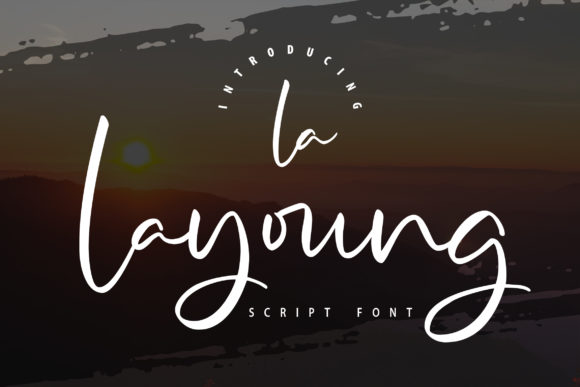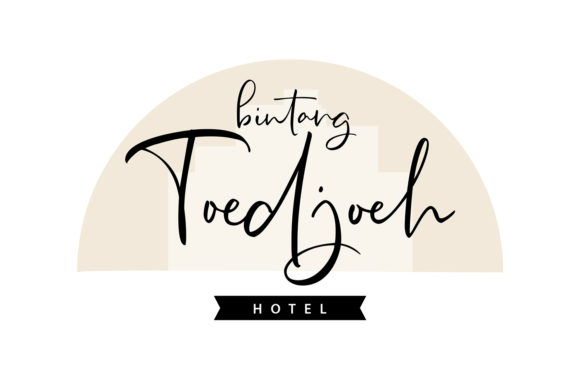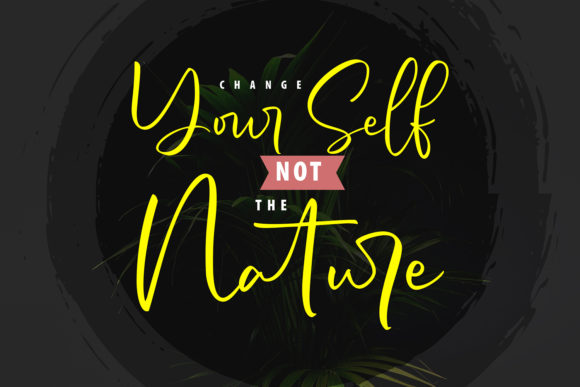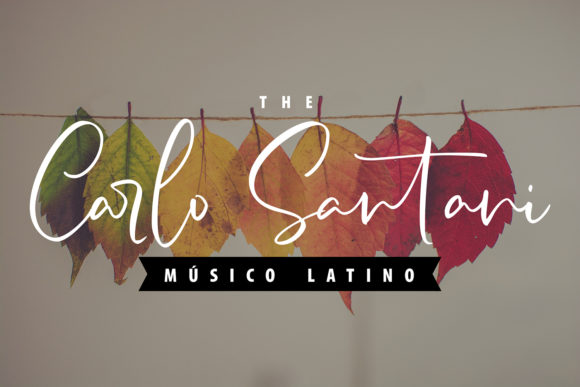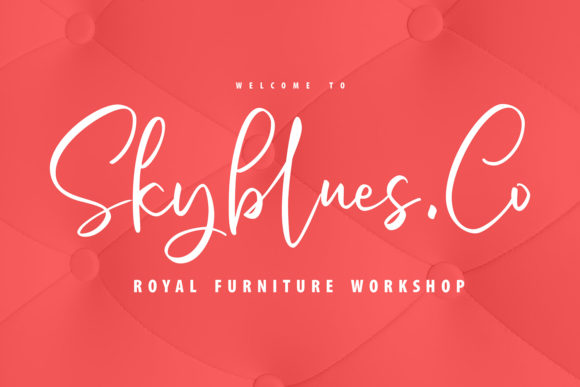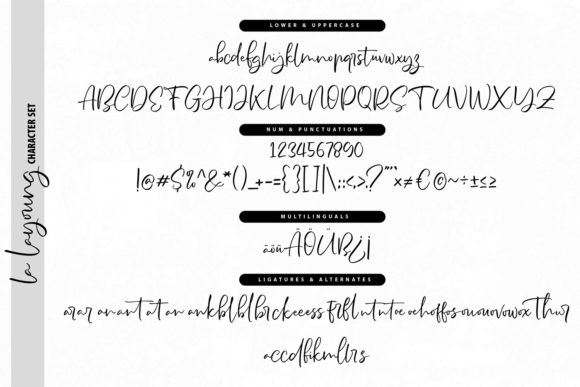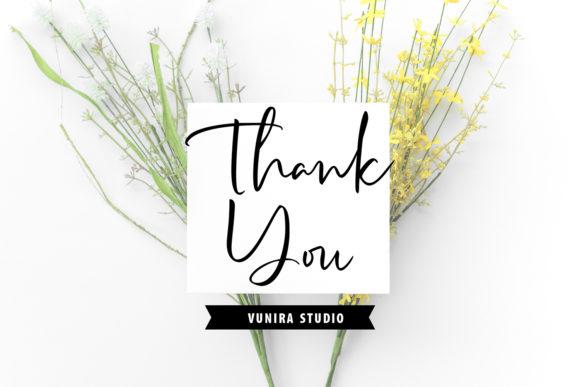
La Layoung Font
About La Layoung Font
La Layoung is a dazzling and flexible script font that is sure to make a lasting impression on your creative projects. With its graceful touch and versatility, La Layoung offers a wide range of possibilities for your design ideas.
The font’s graceful and flowing style adds an elegant and sophisticated touch to any project. Each letter is meticulously designed to create a sense of beauty and harmony. Whether you’re working on invitations, logos, branding materials, or any other design, La Layoung’s graceful curves and smooth lines will elevate your creations.
One of the great features of La Layoung is its PUA encoding. This means that you can easily access all of the glyphs and swashes available in the font. With a wide range of alternate characters, ligatures, and decorative elements, you have the freedom to customize and embellish your designs with ease. This adds an extra level of creativity and uniqueness to your projects.
La Layoung’s flexibility makes it suitable for a variety of design styles and themes. Whether you’re going for a romantic, feminine look or a modern, sleek aesthetic, this font can adapt to your vision. Its versatility allows it to be used in various contexts, including wedding invitations, branding materials, social media posts, and more.
By incorporating La Layoung into your creative ideas, you can create designs that leave an unforgettable impact. The font’s graceful touch and dazzling appearance will catch the attention of viewers and evoke a sense of elegance and beauty. It adds a professional and polished look to your projects, making them stand out from the crowd.
In conclusion, La Layoung is a dazzling and flexible script font that offers a graceful touch and unforgettable impact. With its PUA encoding, you have easy access to a wide range of glyphs and swashes, allowing for customization and creativity. Whether you’re designing for personal or professional purposes, La Layoung will bring elegance and beauty to your creative ideas.